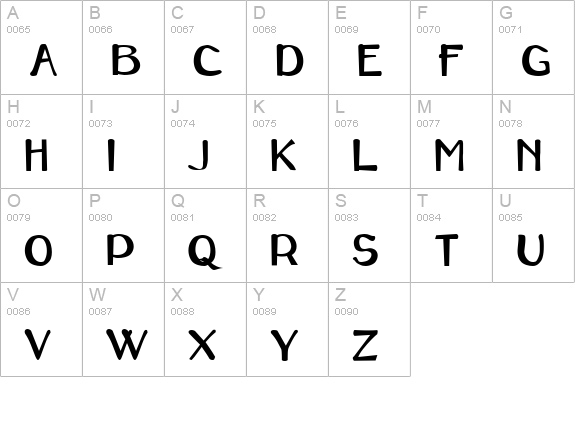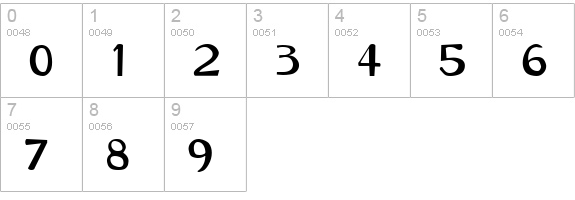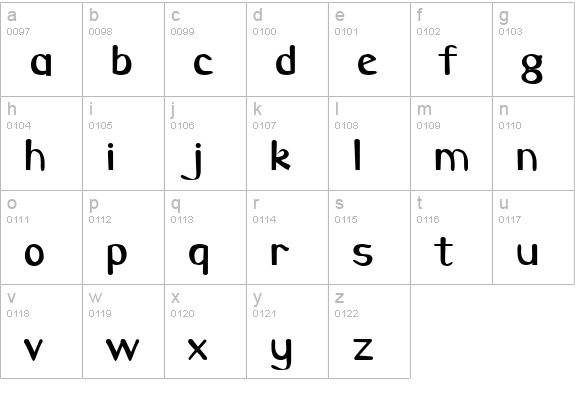
Caraway Regular is the standard, neutral variant in the Caraway typeface family \xE2\x80\x94 well suited to general body text, paragraphs, and standard typographic work.
Caraway Regular font is a versatile and elegant typeface that embodies classic sophistication with a modern twist. Its clean lines and balanced proportions make it perfect for a wide range of design projects, from branding to editorial layouts. The timeless appeal of Caraway Regular font makes it a popular choice for designers looking to add a touch of refinement to their work. And the best part? Caraway Regular font is available for free download at FontsMarket.com, making it accessible to designers of all levels. Whether you're working on a personal project or a professional design, Caraway Regular font is sure to elevate your work with its stylish and timeless aesthetic.